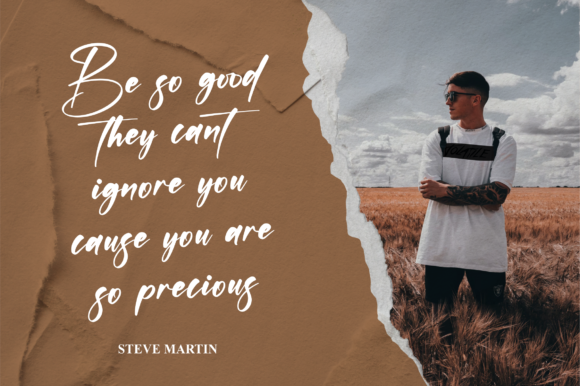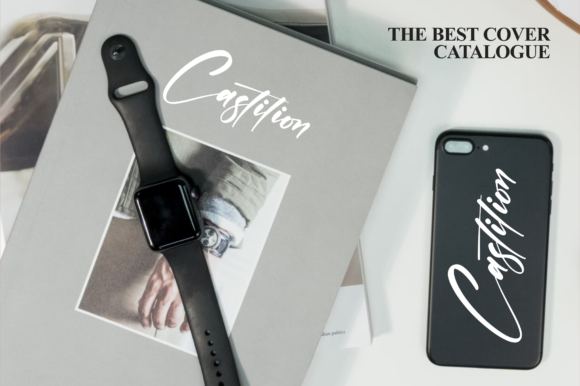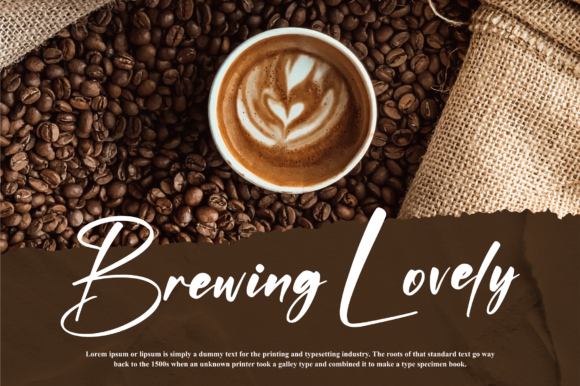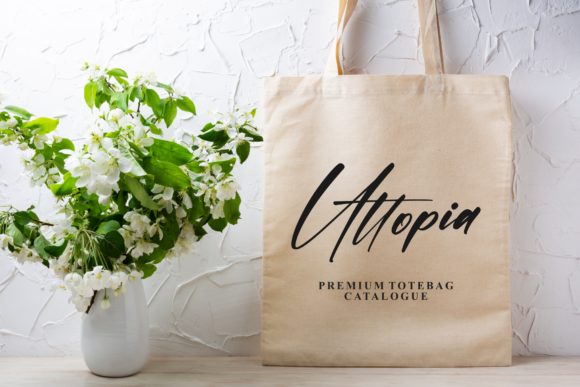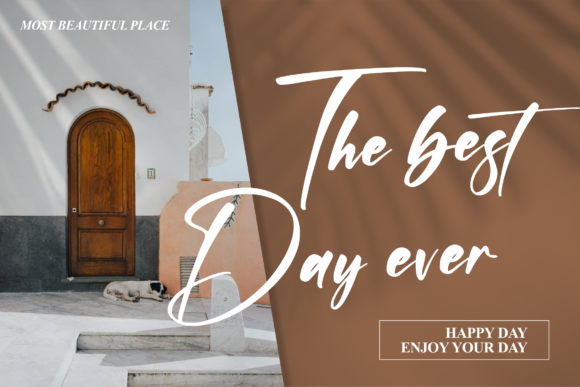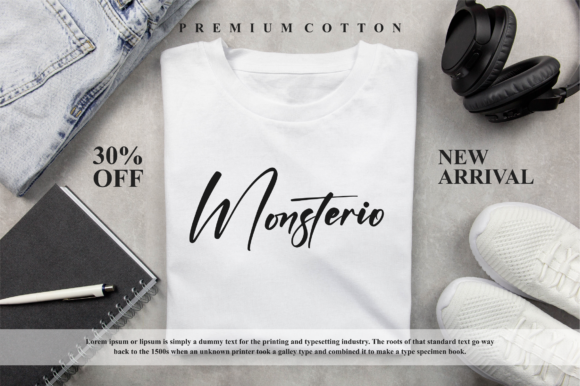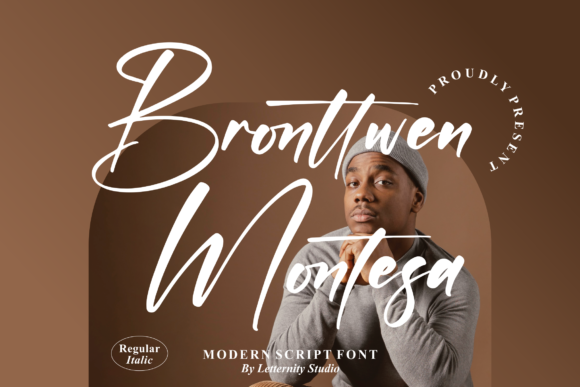
Introducing Bronttwen Montesa: The Ultimate Modern Script Font for Creative Projects
Are you a designer or crafter looking for a beautiful and modern script font to elevate your projects? Look no further than Bronttwen Montesa, a stunning script font that is perfect for a wide range of creative endeavors. From logos and branding projects to homeware designs, product packaging, and more, Bronttwen Montesa is the ideal choice for anyone seeking a stylish and versatile font.
What Makes Bronttwen Montesa So Special?
Bronttwen Montesa is a modern script font that boasts a unique and elegant style, making it perfect for designers and crafters who want to add a touch of sophistication to their projects. Its beautiful, flowing lines and curves create a sense of movement and fluidity, making it ideal for use in a variety of applications, from logos and branding to packaging and marketing materials.
Endless Possibilities with Bronttwen Montesa
One of the best things about Bronttwen Montesa is its incredible versatility. This amazing script font can be used for a wide range of projects, including:
- Logos and branding projects: Create a lasting impression with a custom logo or branding materials that showcase your unique style.
- Homeware designs: Add a touch of elegance to your home decor with Bronttwen Montesa-inspired designs on mugs, pillows, and more.
- Product packaging: Stand out on store shelves with eye-catching packaging that features the beautiful Bronttwen Montesa font.
- Mugs and ceramics: Create one-of-a-kind mugs, plates, and other ceramics with Bronttwen Montesa’s stylish script.
- Quotes and posters: Make a statement with beautifully designed quotes and posters that showcase Bronttwen Montesa’s elegant curves.
- Shopping bags: Elevate your brand with custom shopping bags that feature the stylish Bronttwen Montesa font.
- T-shirts and apparel: Create stunning t-shirts, hoodies, and other apparel with Bronttwen Montesa’s modern script.
- Book covers and name cards: Add a touch of sophistication to your book covers and name cards with Bronttwen Montesa’s beautiful font.
- Invitation cards and greeting cards: Make your invitations and greeting cards truly special with Bronttwen Montesa’s elegant script.
- Labels and watermarks: Use Bronttwen Montesa to create custom labels and watermarks that add a touch of style to your products.
- Special events: Make your special events unforgettable with Bronttwen Montesa-inspired designs on invitations, programs, and more.
Why Choose Bronttwen Montesa?
So why should you choose Bronttwen Montesa for your next project? Here are just a few reasons:
- Unique and stylish: Bronttwen Montesa is a one-of-a-kind script font that will set your projects apart from the rest.
- Versatile: With its wide range of applications, Bronttwen Montesa is the perfect font for designers and crafters who want to create a variety of projects.
- Elegant and sophisticated: Bronttwen Montesa’s beautiful curves and lines add a touch of elegance and sophistication to any project.
Get Creative with Bronttwen Montesa
In conclusion, Bronttwen Montesa is a modern and beautiful script font that is perfect for designers and crafters who want to add a touch of elegance and sophistication to their projects. With its wide range of applications, versatility, and ease of use, Bronttwen Montesa is the ideal choice for anyone seeking a stylish and versatile font. So why not give Bronttwen Montesa a try today and see the difference it can make in your creative projects?